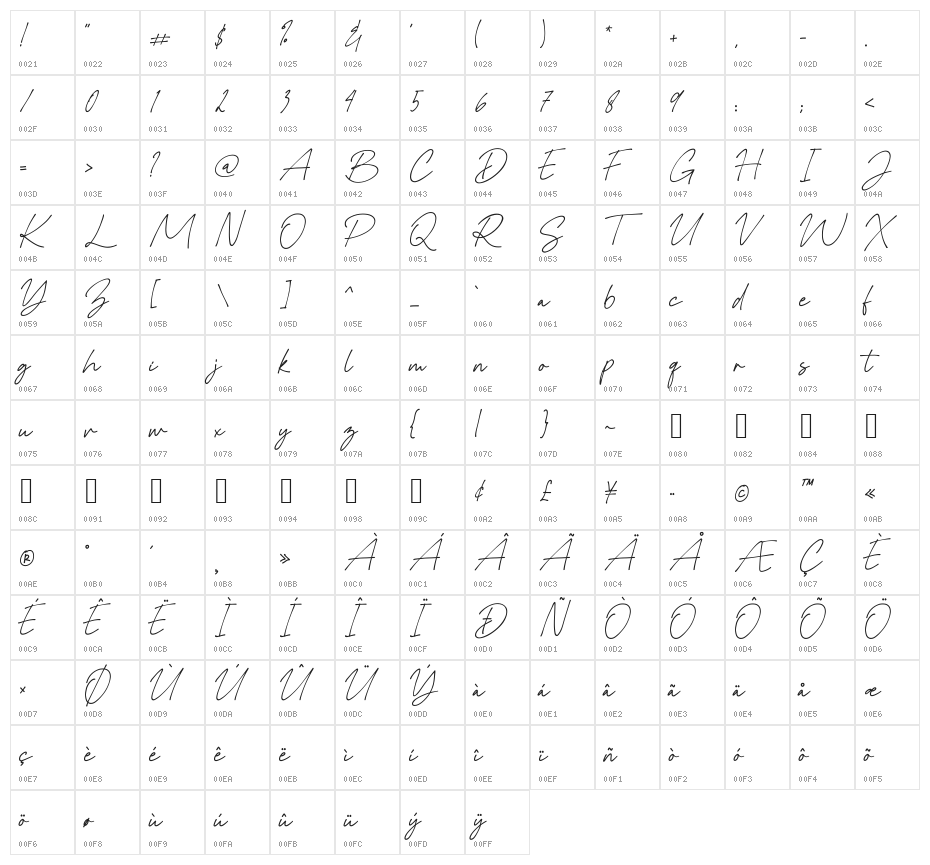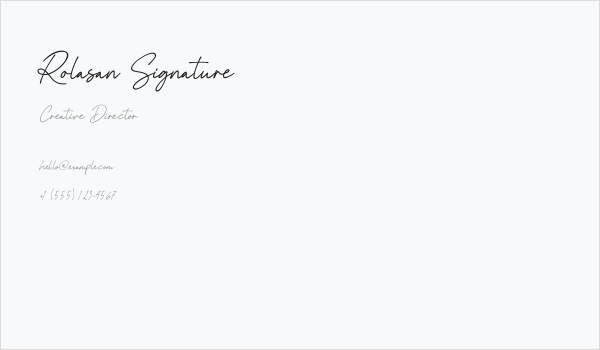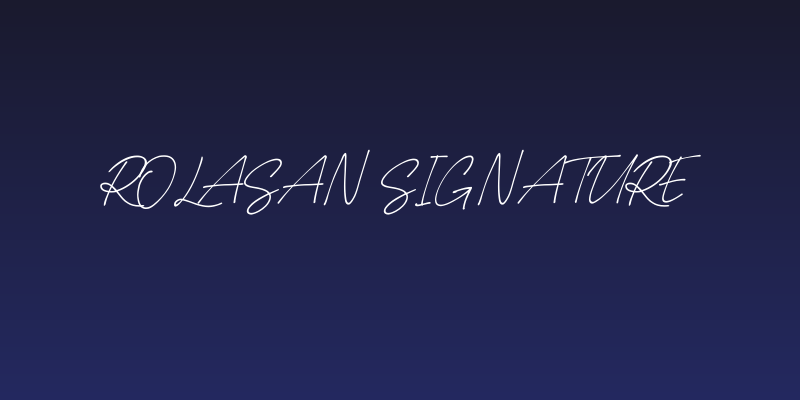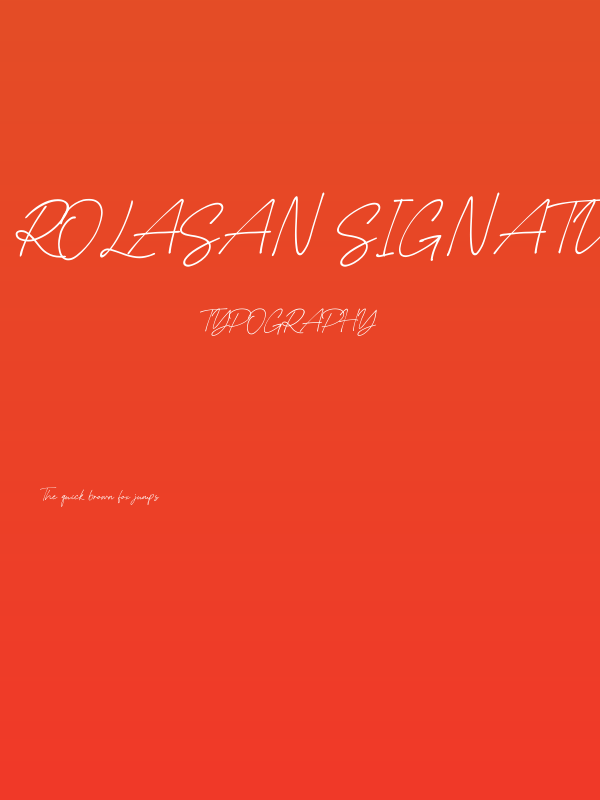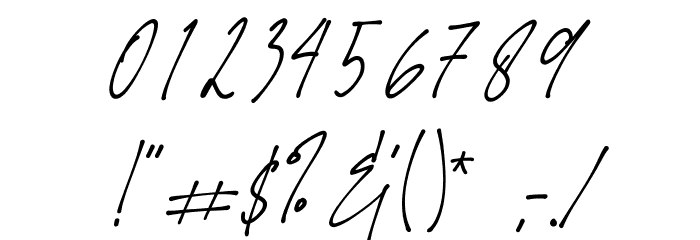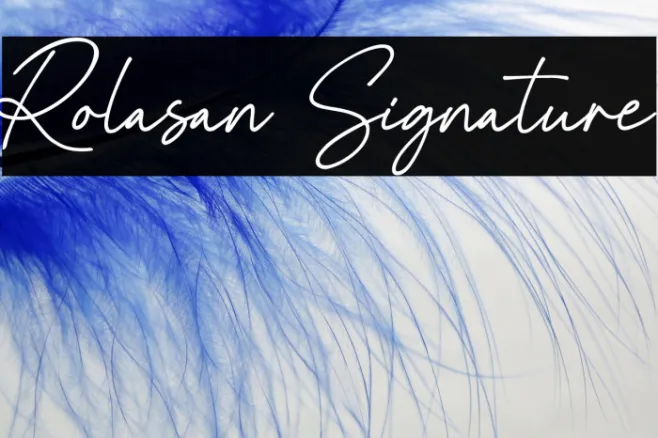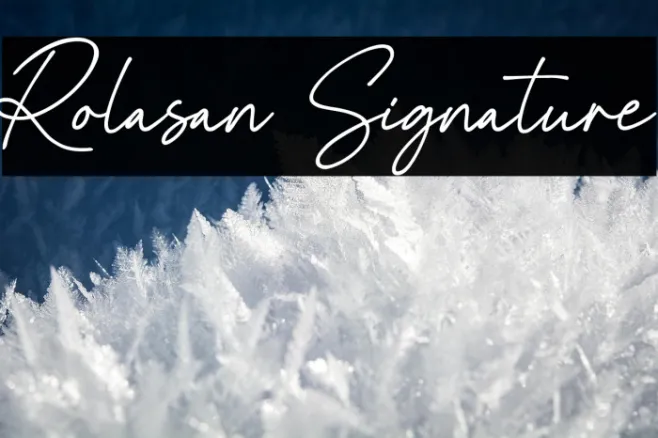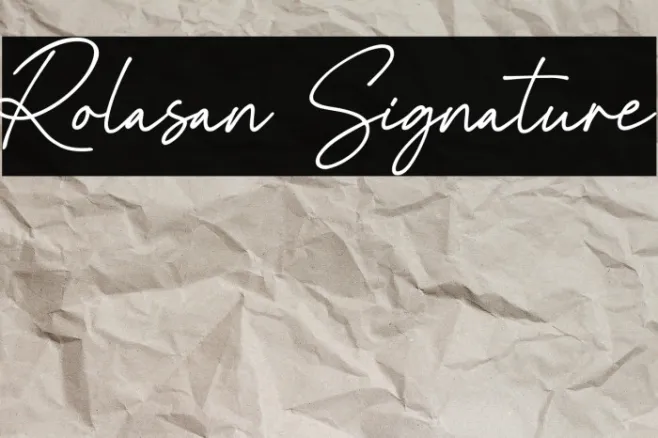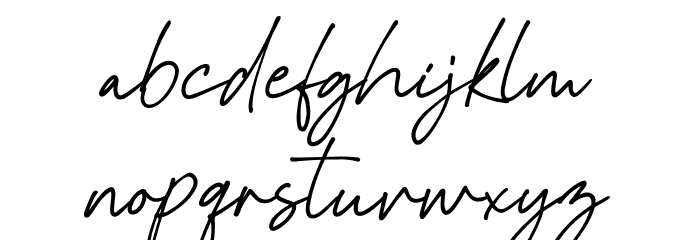
Rolasan Signature Font
Rolasan Signature Description
This elegant script font features a fluid, handwritten style that exudes sophistication and charm. The letters are gracefully connected, with smooth curves and a natural flow that mimics authentic handwriting. The uppercase letters are slightly more elaborate, adding a touch of formality, while the lowercase letters maintain a casual, approachable feel. The numerals and special characters are designed to complement the alphabet, ensuring consistency across all text. This font is perfect for projects that require a personal touch, such as invitations, greeting cards, or branding materials.
| Proposed Projects | Ideal for wedding invitations, personal branding, greeting cards, and elegant packaging. |